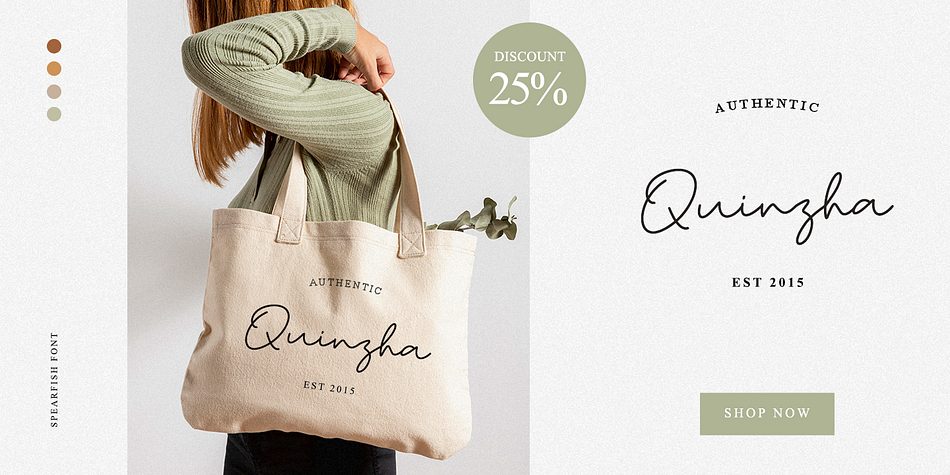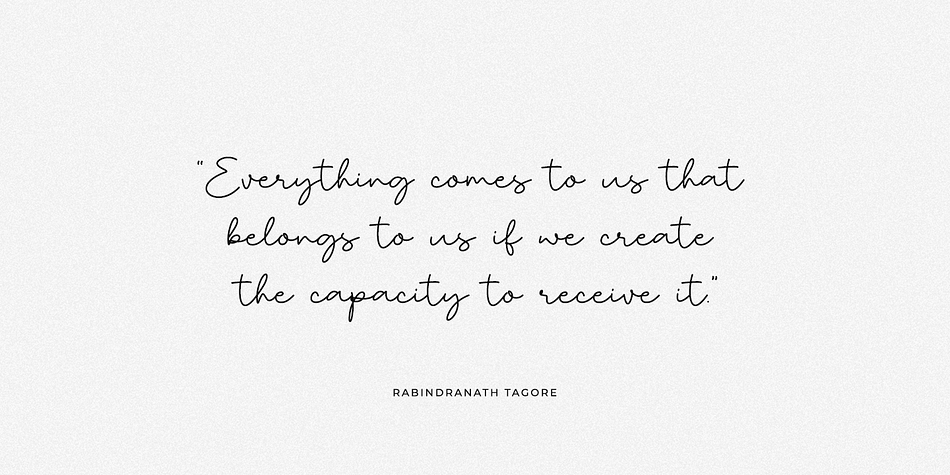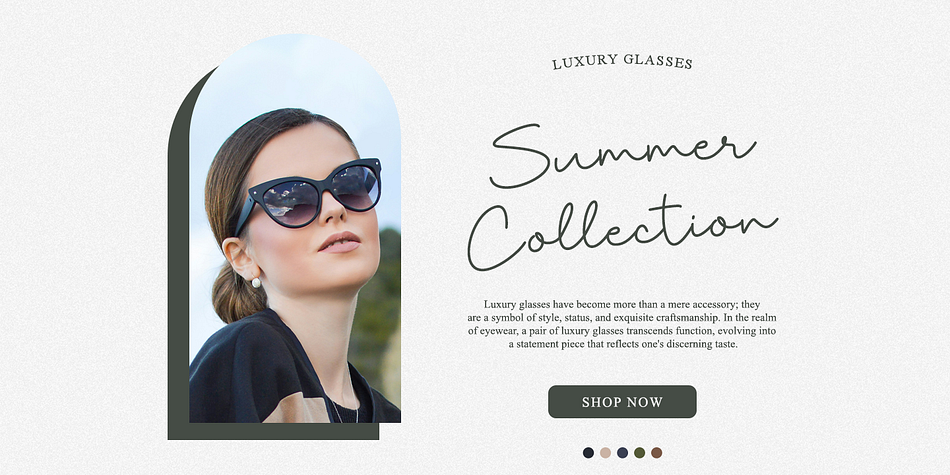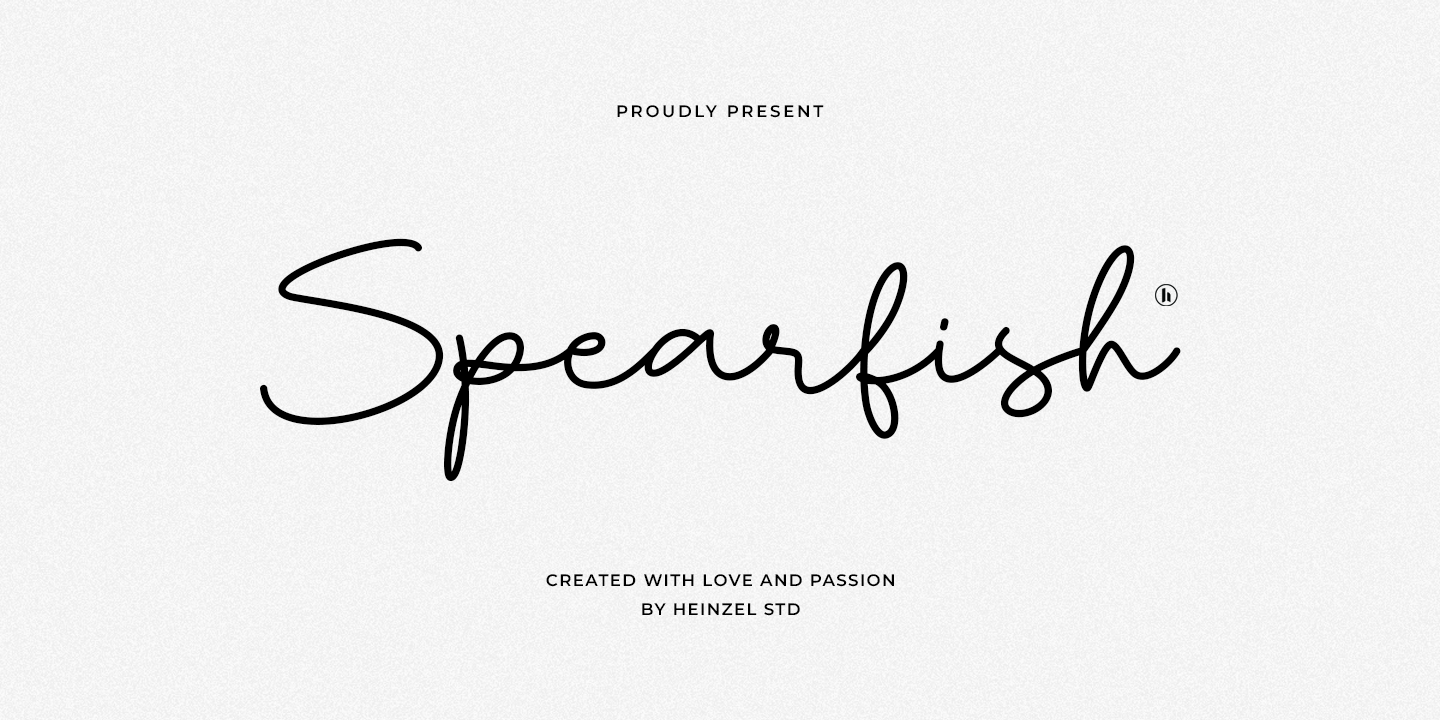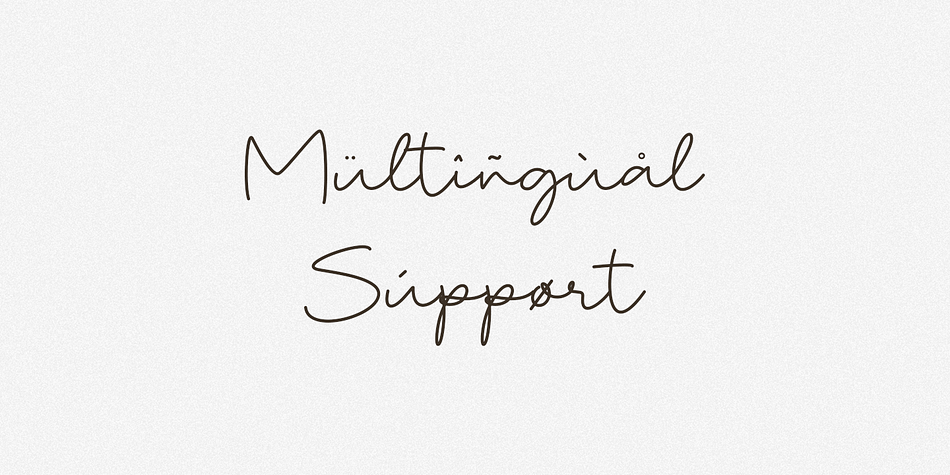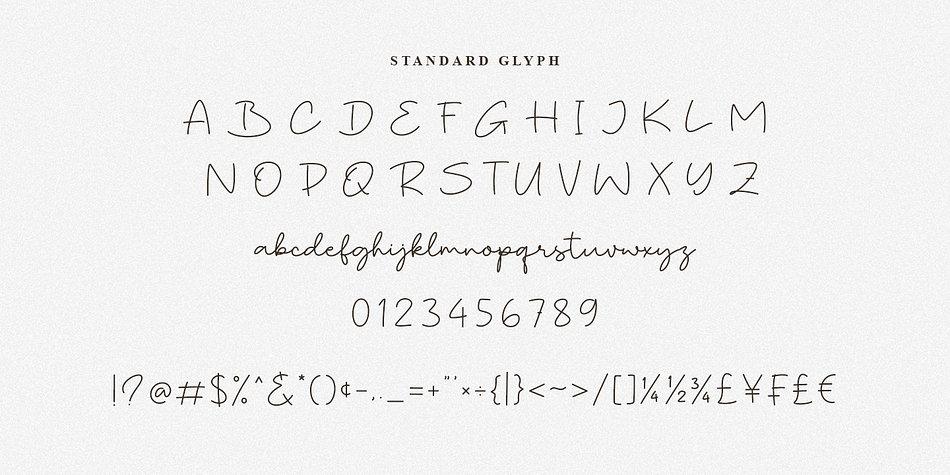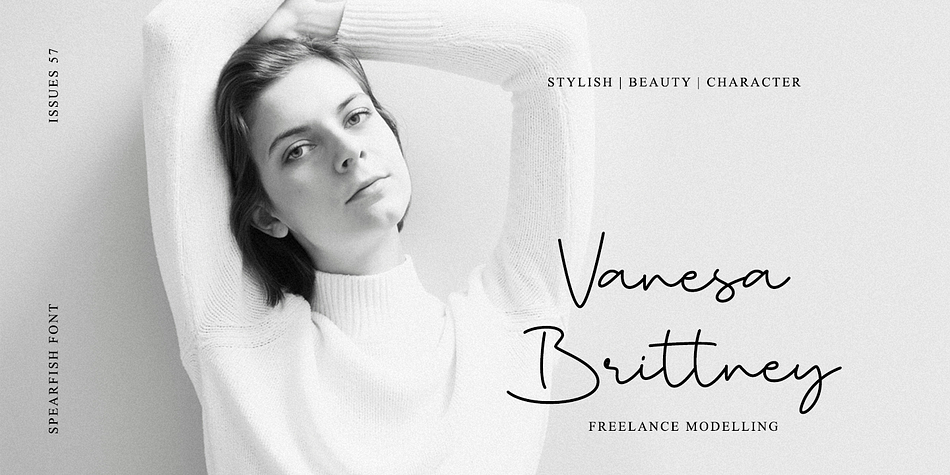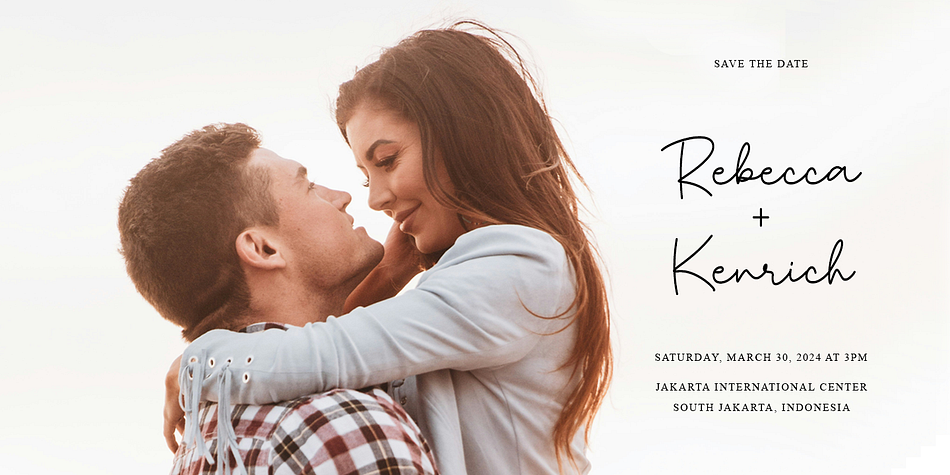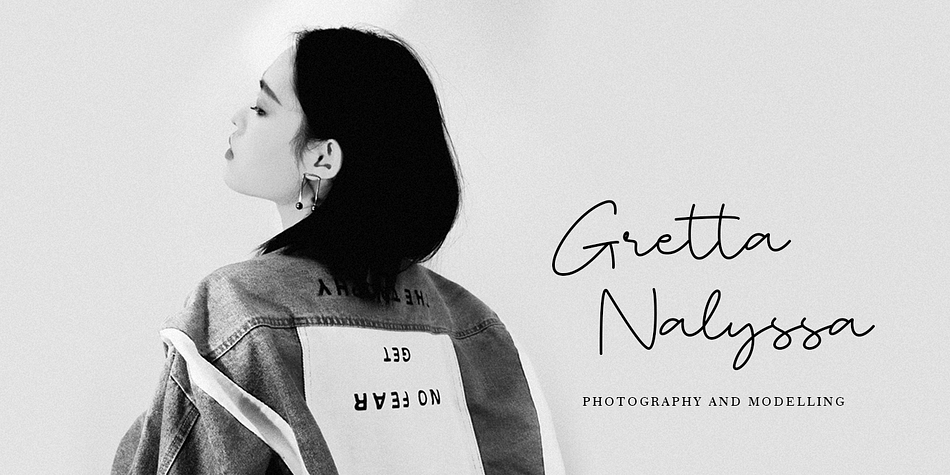
Spearfish
Spearfish is a brush script font family published by Heinzel Std.
Introducing Spearfish, a captivating handwriting font that adds a personal touch to your designs. With its fluid strokes and timeless appeal, Spearfish brings a sense of effortless elegance to any project. Whether used for invitations, branding, or digital content, this font exudes charm and authenticity. Its legible letterforms make it versatile for various applications, ensuring clarity and style.